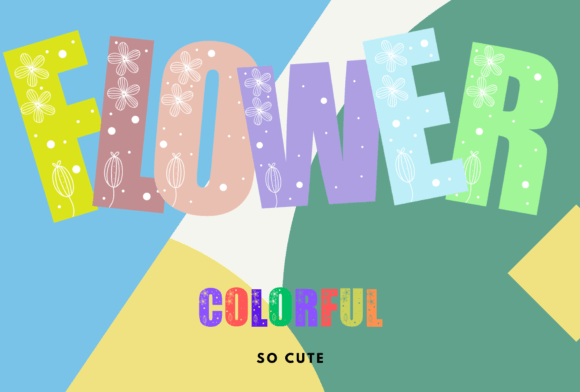
Introducing Flower Colorful Font, a captivating and vibrant display font created by Itme_digitalart. This font is not just your ordinary typeface, it is a work of art that will instantly captivate your audience and bring life to any project.
Flower Colorful Font is designed specifically for LED displays, making it perfect for businesses, events, and digital signage. With its dynamic and eye-catching style, this font will elevate your message and ensure it stands out from the crowd. Say goodbye to dull and ordinary fonts and hello to a world of creativity and excitement!
Imagine the impact Flower Colorful Font will have on your website, social media posts, or promotional materials. Its bold and playful design will instantly grab attention and leave a lasting impression on your audience. Whether you're promoting a sale, announcing a new product, or simply want to add a touch of personality to your designs, this font is your go-to choice.
But Flower Colorful Font isn't just about aesthetics. It is also highly versatile and can be used in a variety of settings. From playful children's books to modern brand identities, this font adapts effortlessly to any project. Let your imagination run wild and watch as Flower Colorful Font brings your ideas to life.
With its wide range of vibrant colors and intricate details, this font is a true visual delight. Each letter is meticulously crafted to exude joy, positivity, and a sense of celebration. Your audience won't be able to resist the charm and energy radiating from every character.